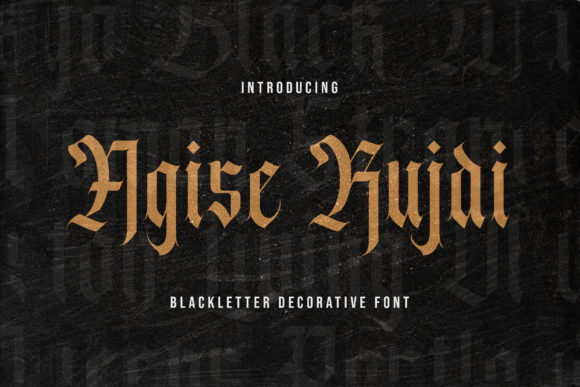
Agise Rujdi Font: Unleash Your Creativity with this Authentic Blackletter Font
Are you tired of using the same old fonts for your creative projects? Do you want to add a touch of authenticity and daringness to your designs? Look no further than the Agise Rujdi font. This incredibly authentic and daring blackletter font is sure to make your creative ideas stand out from the crowd.
What is Agise Rujdi Font?
Agise Rujdi is a blackletter font that exudes a sense of boldness and authenticity. Its unique design is inspired by traditional blackletter typography, with intricate details and ornate flourishes. This font is perfect for designers who want to add a touch of elegance and sophistication to their work.
Key Features of Agise Rujdi Font
- Authentic Blackletter Design: Agise Rujdi boasts an authentic blackletter design that is sure to transport your readers to a bygone era.
- Daring and Bold: This font is not for the faint of heart. Its bold and daring design makes it perfect for headlines, titles, and other attention-grabbing elements.
- Intricate Details: Agise Rujdi features intricate details and ornate flourishes that add a touch of elegance to your designs.
- Multilingual Support: This font supports multiple languages, making it perfect for designers who work with international clients.
10 Creative Ways to Use Agise Rujdi Font
- Logos and Branding: Use Agise Rujdi to create a bold and memorable logo for your brand.
- Headlines and Titles: Add a touch of elegance to your headlines and titles with this stunning blackletter font.
- Posters and Flyers: Create eye-catching posters and flyers with Agise Rujdi’s bold and daring design.
- Packaging Design: Use this font to add a touch of sophistication to your packaging designs.
- Web Design: Add a touch of elegance to your website with Agise Rujdi’s unique design.
- Social Media Graphics: Create stunning social media graphics with this font’s bold and attention-grabbing design.
- Infographics: Use Agise Rujdi to add a touch of elegance to your infographics.
- Business Cards: Create memorable business cards with this font’s unique design.
- Signage: Use Agise Rujdi to create eye-catching signage for your business or event.
- Merchandise: Add a touch of boldness to your merchandise with this stunning blackletter font.
Tips and Tricks for Using Agise Rujdi Font
- Pair it with a Sans-Serif Font: Pair Agise Rujdi with a sans-serif font to create a striking contrast.
- Use it for Headlines Only: Use Agise Rujdi for headlines and titles only, and a simpler font for body text.
- Experiment with Colors: Experiment with different colors to find the perfect combination for your design.
- Pay Attention to Kerning: Pay attention to kerning to ensure that your text is evenly spaced.
- What is Agise Rujdi font?
- Agise Rujdi font is an incredibly authentic and daring blackletter font.